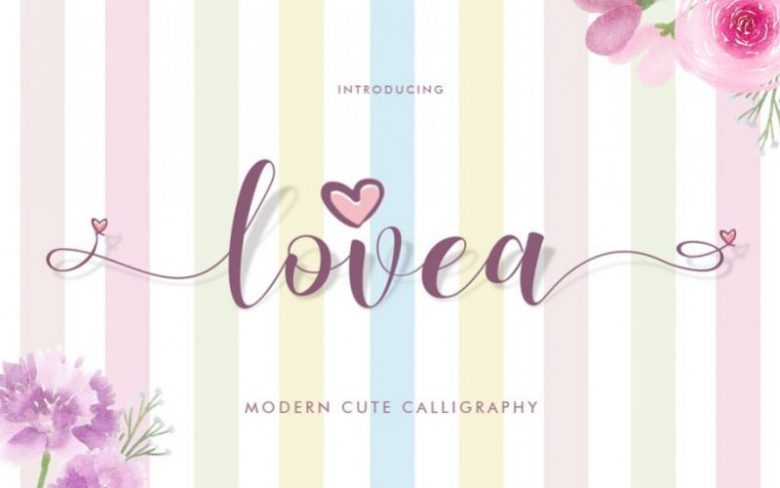
Lovea Calligraphy Font
The Lovea script font is a beautiful calligraphy, fresh & modern style . Lovea Script Font suitable for logo, branding, greeting card, poster and any design that you create.